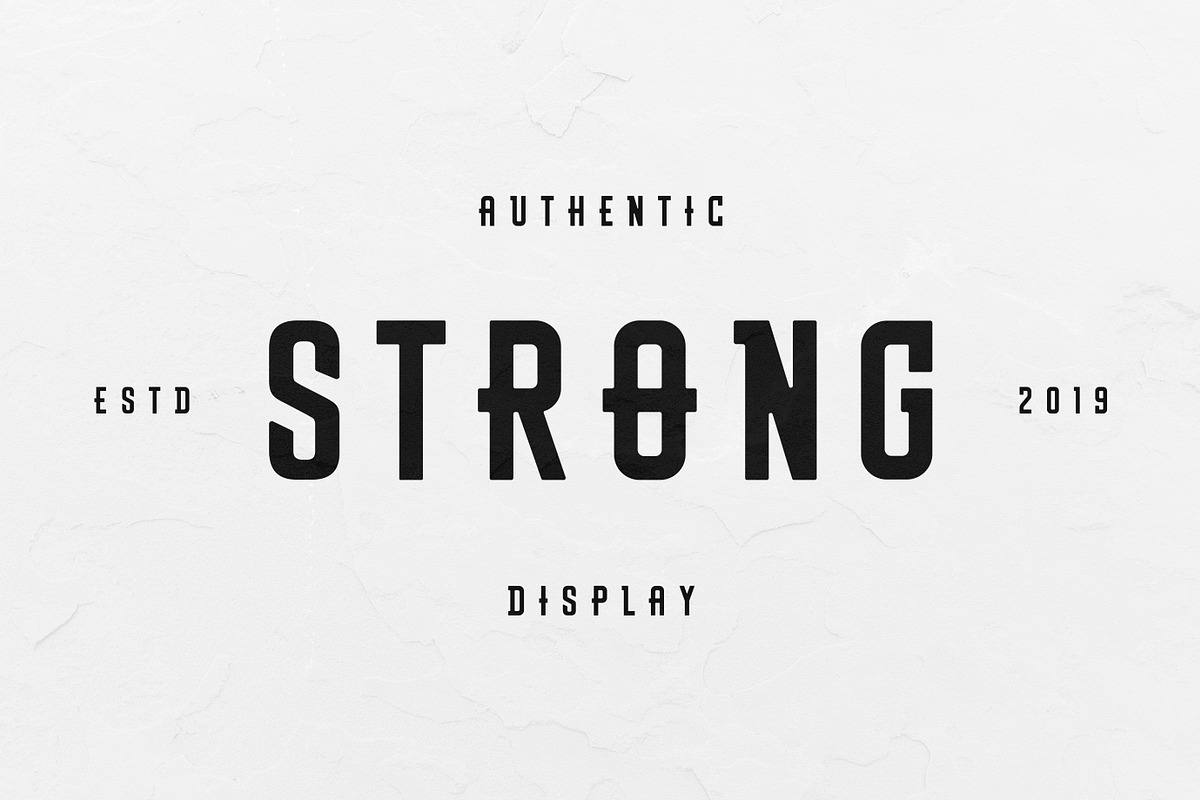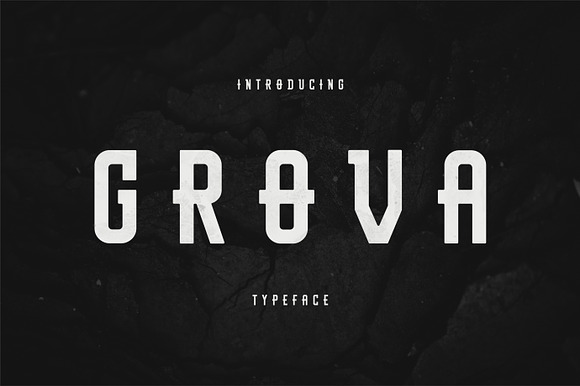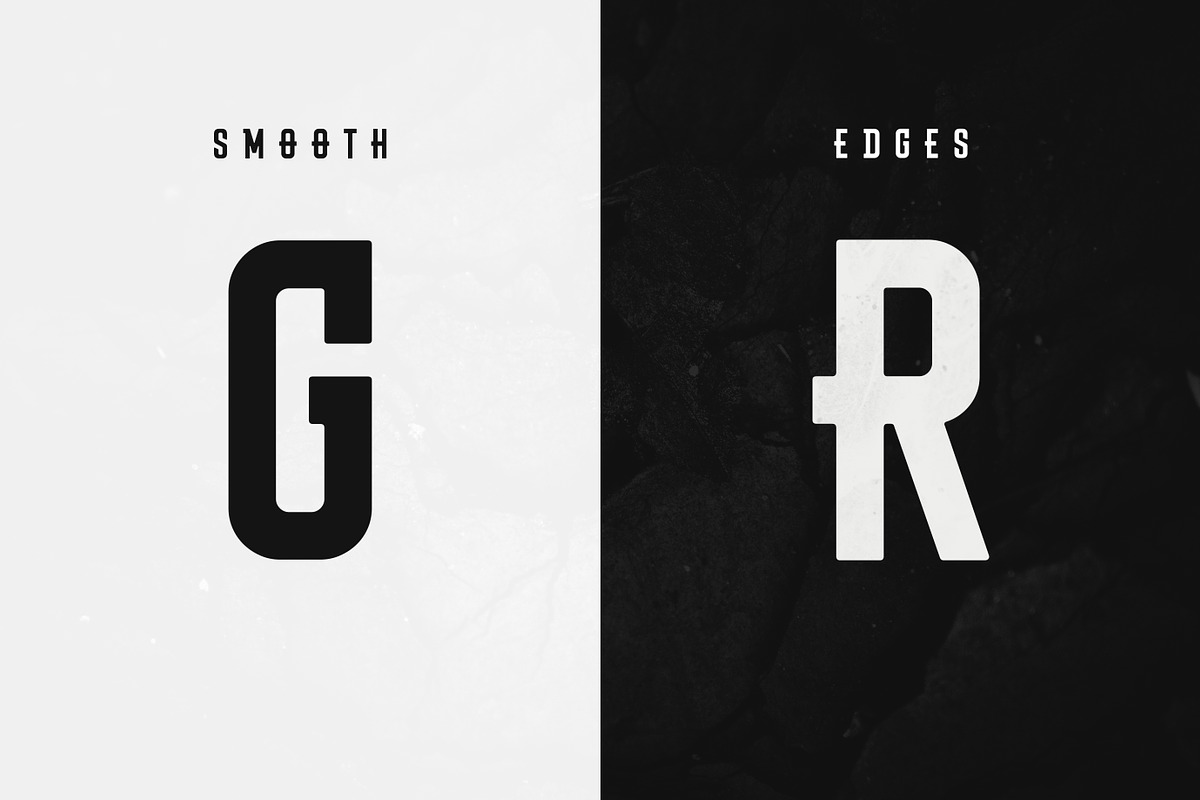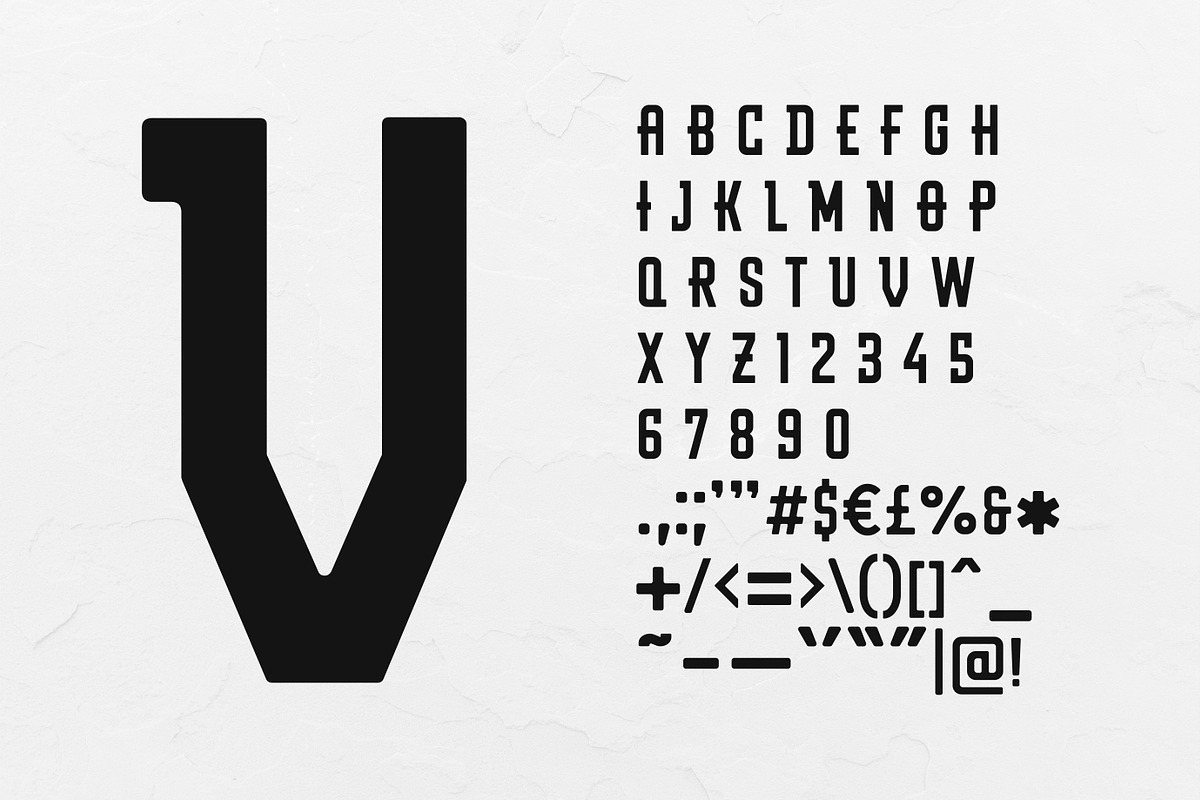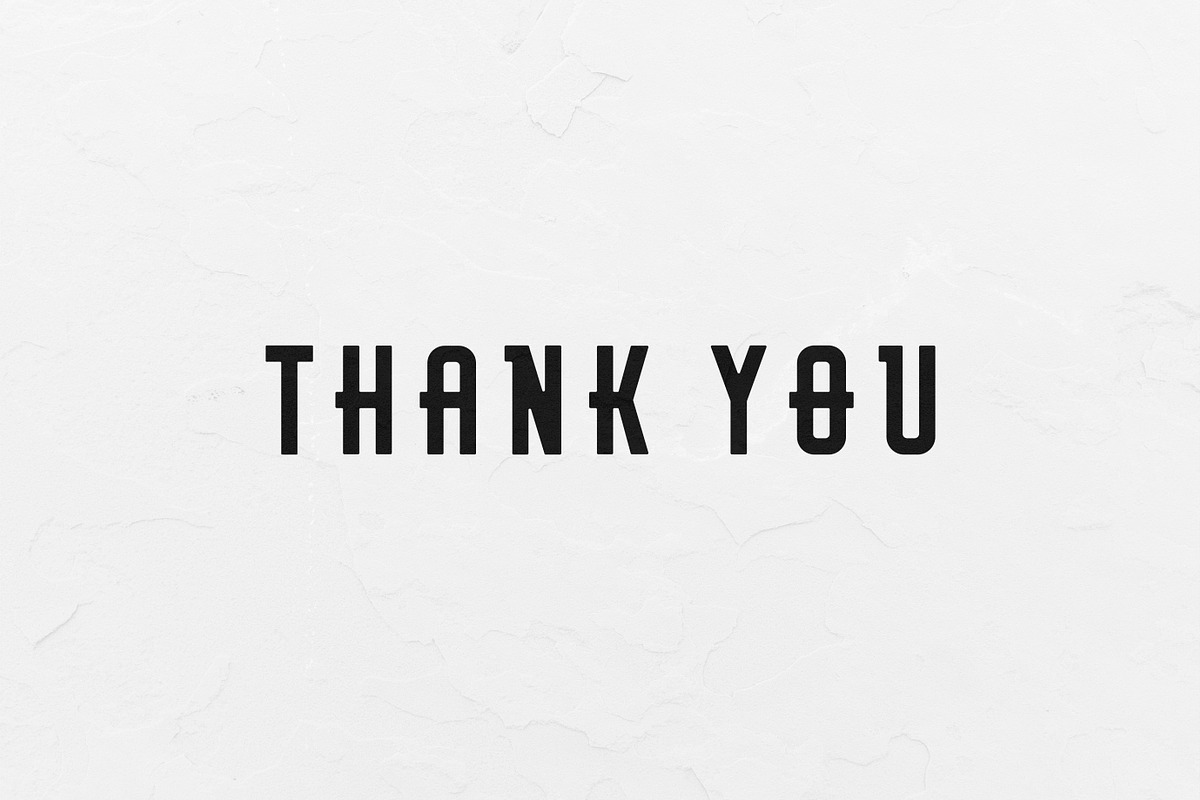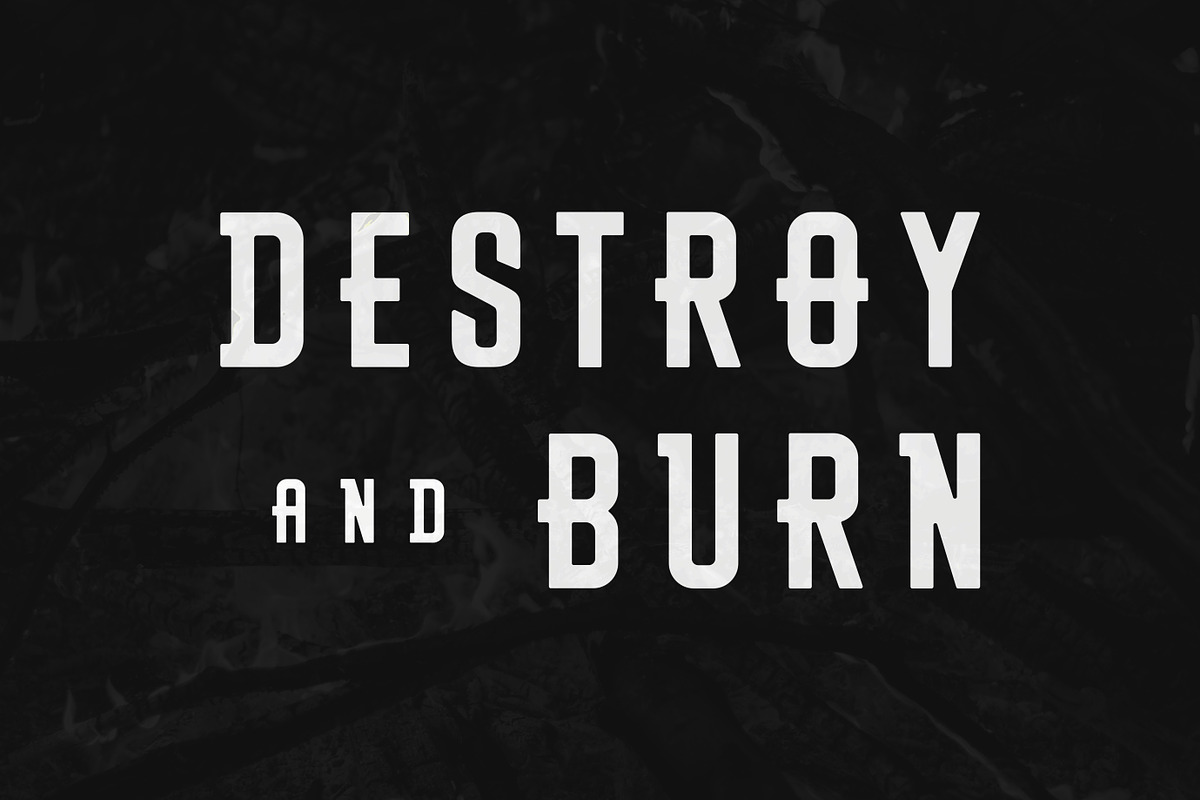
GROVA TYPEFACE
GROVA TYPEFACE is a all caps display font with smooth edges aggressive appearance Build for strong Branding
Why GROVA TYPEFACE is worth a look
GROVA TYPEFACE by BLVSUPPLY fits naturally into Branding, posters, packaging, typography.